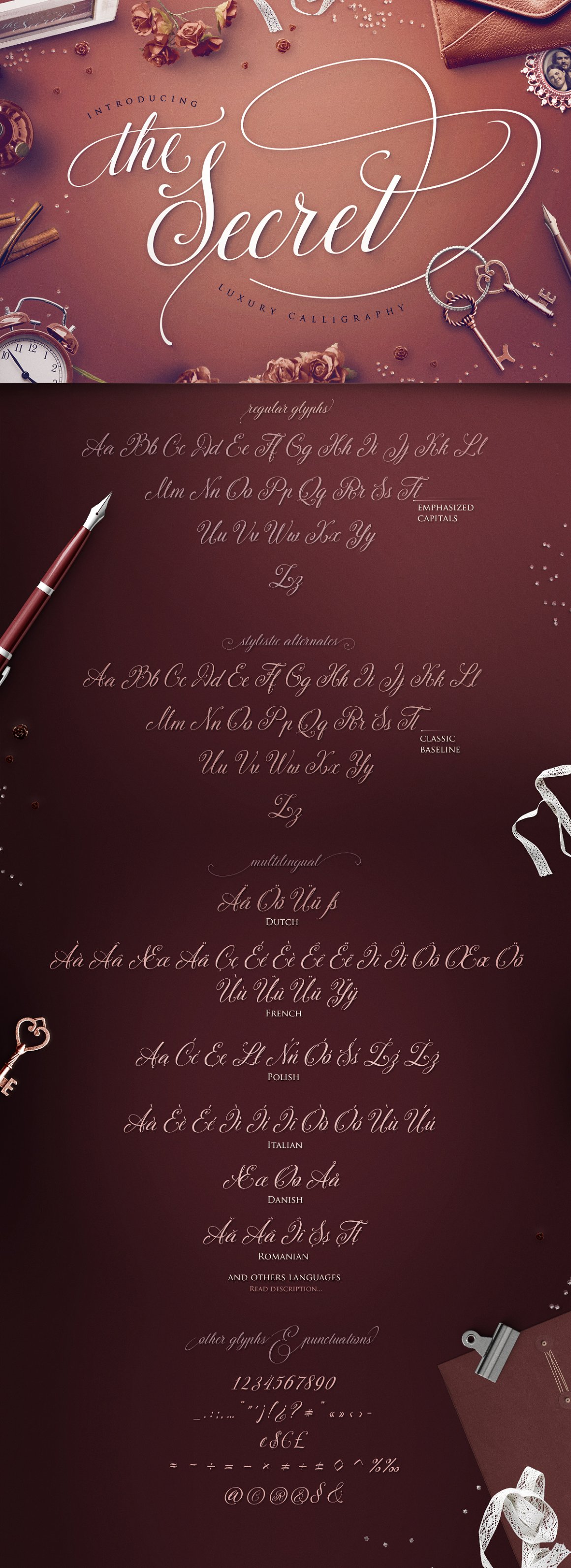
The Secret Script Font
TheSecret is handwritten script with more then 50 end-swashes. It is opentype! It is smart and it is working in Photoshop without necessary to open glyph panel! You are welcome to use it for various purposes: logo, wedding invitation, headings, signatures, t-shirt, letterhead, signage, labels, posters etc.